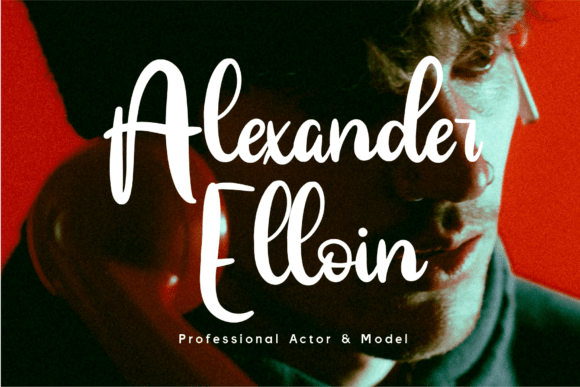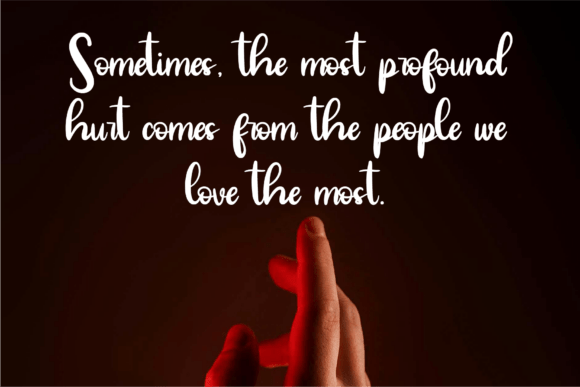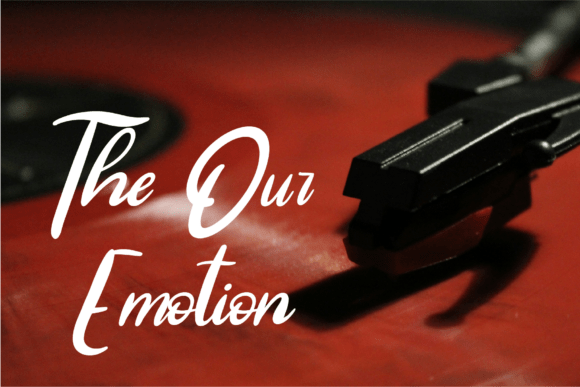
Introducing Marvelya Cherie, a bold and sophisticated brush script font that blends energy, elegance, and artistic flair into every stroke.
Designed with smooth curves and fluid motion, this typeface radiates warmth and personality, making it the perfect choice for branding, packaging, invitations, advertising, and stylish editorial projects .
Marvelya Cherie Font offers exceptional quality and versatility, making it a valuable addition to your design toolkit. Whether you’re creating for personal projects or commercial use, Marvelya Cherie Font delivers professional results.